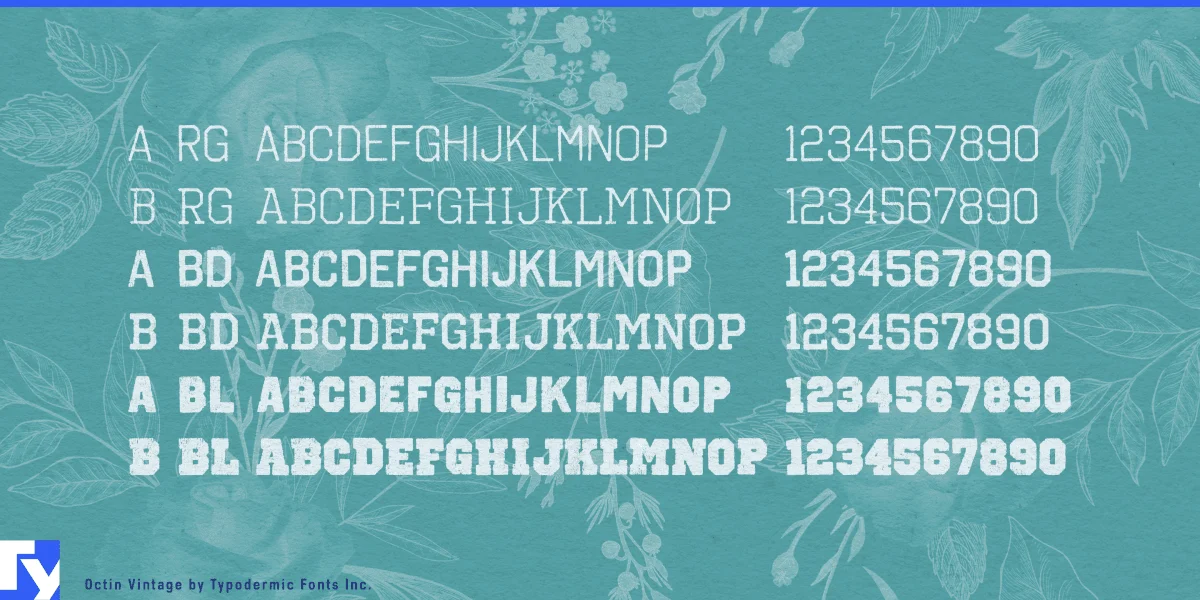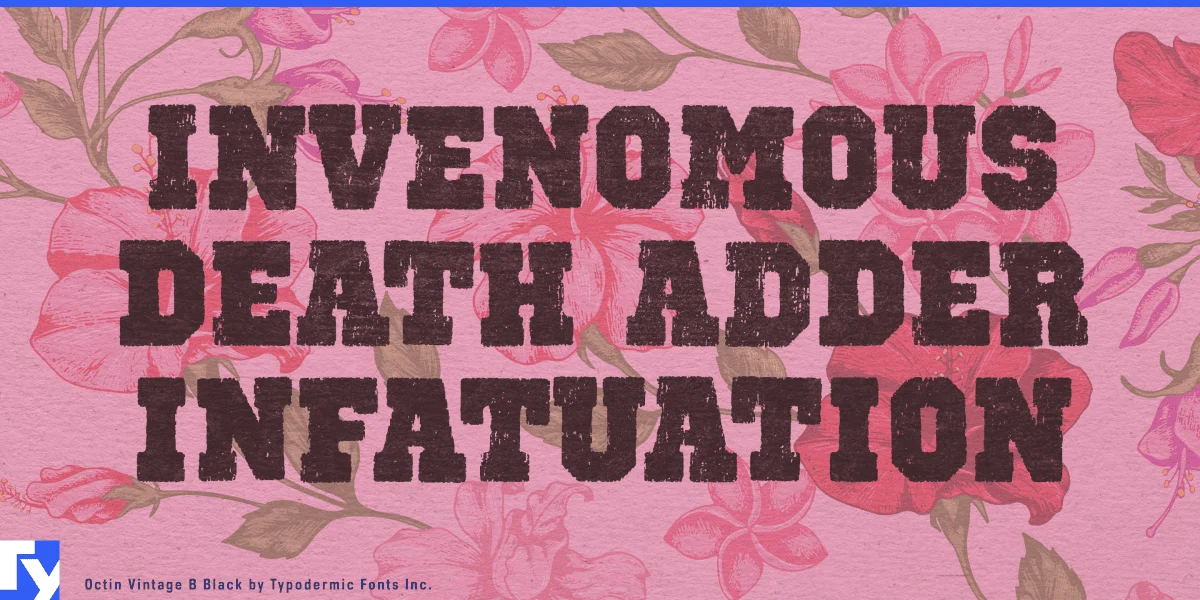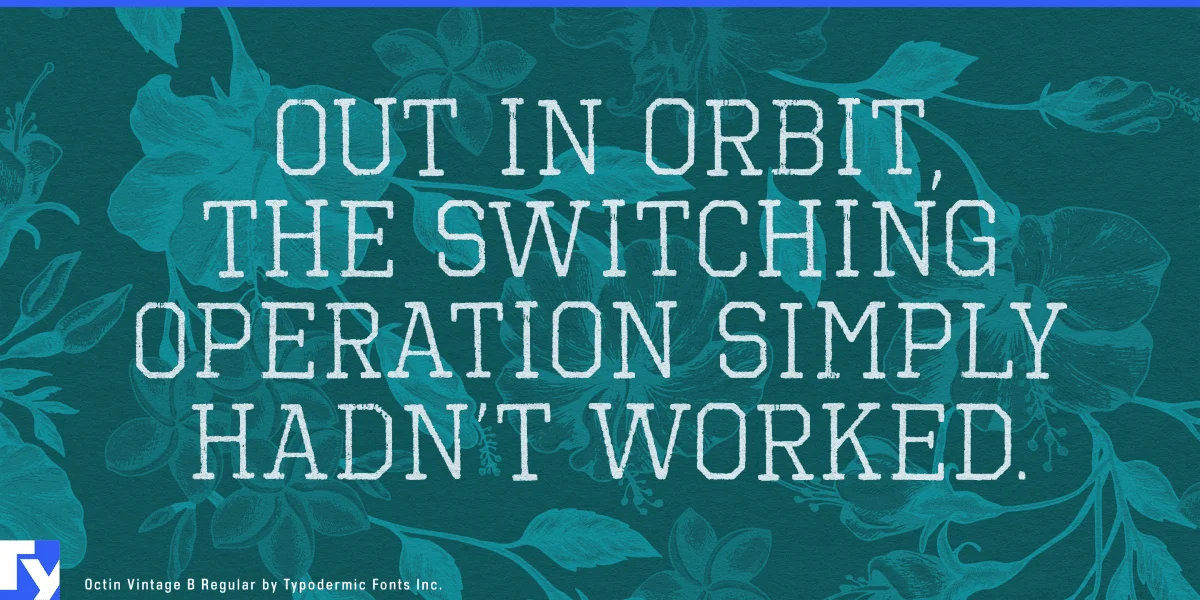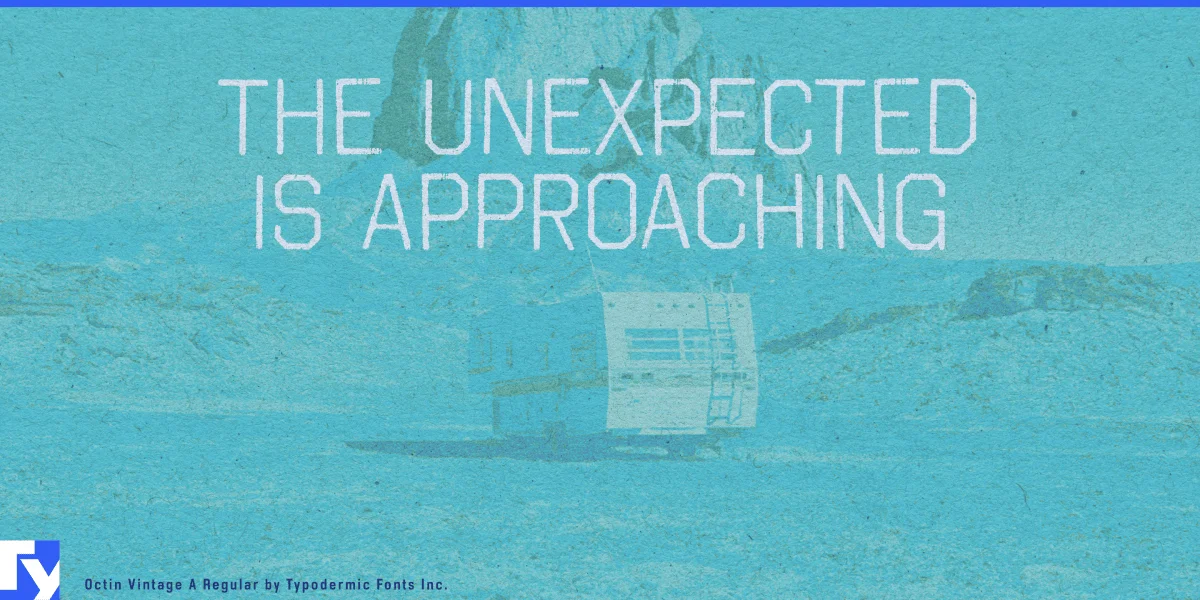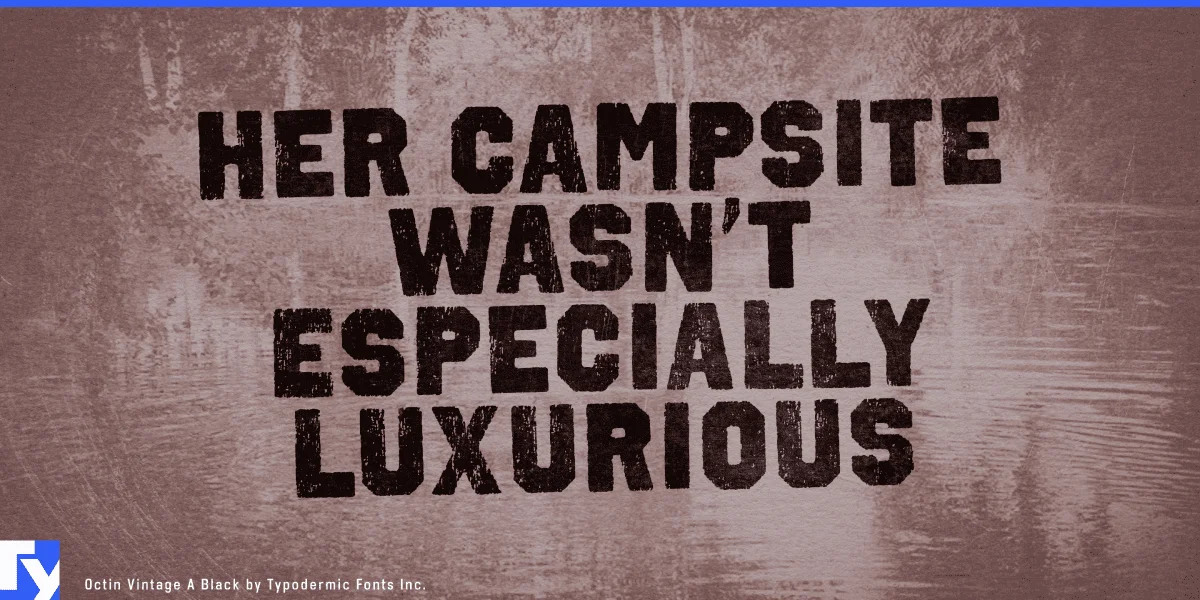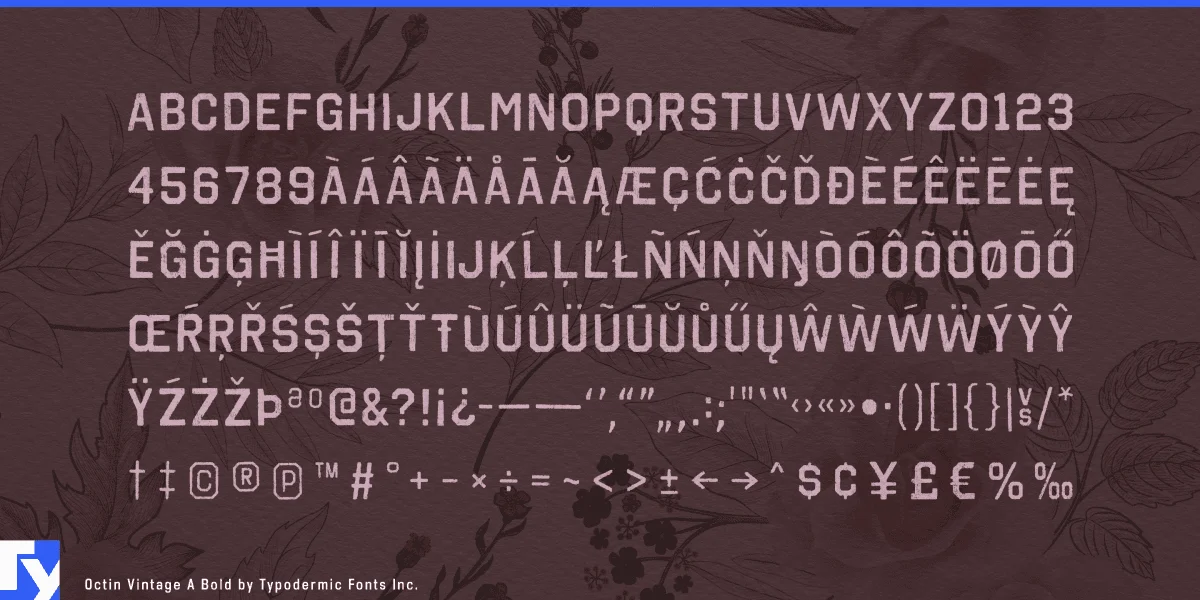
Step into the typographic speakeasy of design with Octin Vintage, a font family that doesn’t just nod to the past—it swaggers through time with brass-knuckled elegance.
Octin Vintage comes fully loaded with two distinct styles—sans and serif—each packing three weighty punches: regular for everyday tough, bold for when you need to flex, and black for those times when subtlety is best left at the door. The sans style keeps it clean and mean, while the serif option adds a touch of class to your brass. Don’t pigeonhole Octin Vintage as just another pretty face from the past. This versatile bruiser is equally at home on modern police badges or vintage sports pennants, prison signage or construction blueprints, school crests or military insignia. Its delicately textured finish adds a layer of depth that whispers of stories untold and battles hard-fought.
Octin Vintage speaks the international language of old-school cool. Supporting most Latin-based European writing systems, it ensures your message maintains its timeless swagger from the cobblestone streets of Prague to the neon-lit alleys of Tokyo. It’s typography that’s got stories to tell in any language. This seasoned pro isn’t a lone wolf—it’s part of the legendary Octin crew. Team up with Octin Sports for designs that never go out of style, Octin College for a more scholarly approach to cool, Octin Prison for that time-tested toughness, Octin Stencil for military-grade vintage, and Octin Spraypaint for a grittier take on the good old days.
In a design world often chasing the next shiny trend, Octin Vintage stands as a testament to enduring style. It’s for brands that don’t just make an impression—they leave a legacy. For messages that don’t just speak—they resonate through the ages. From retro game designs to craft brewery labels, Octin Vintage communicates with the quiet confidence of a barroom legend. Choose Octin Vintage and watch your designs mature into instant classics.